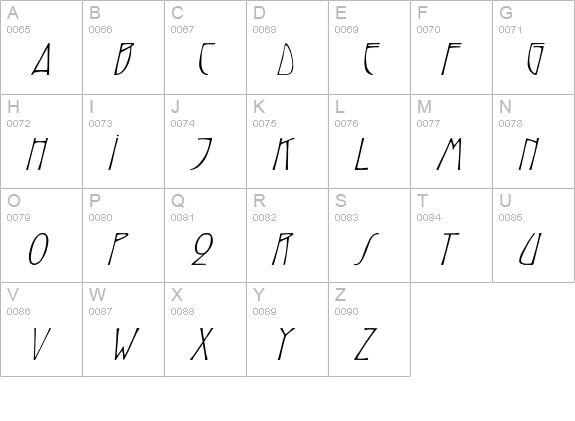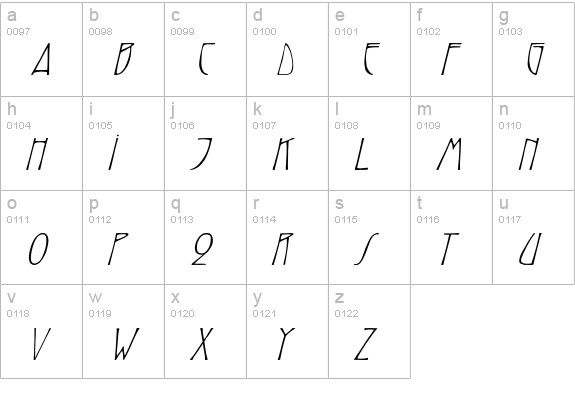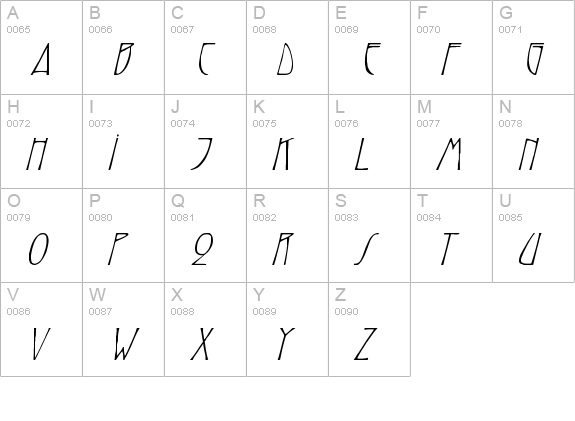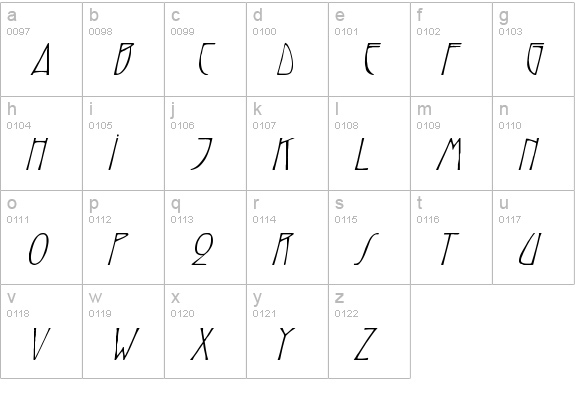
ReynoldCaps Italic is a distinctive, italic variant in the ReynoldCaps typeface family \xE2\x80\x94 well suited to design and typography projects.
ReynoldCaps Italic font is a stunning and elegant typeface that exudes sophistication and charm. With its delicate curves and slanted design, this font adds a touch of grace to any project or design. The italic style gives it a unique and stylish look, perfect for adding emphasis or creating a sense of movement. This font is not only visually appealing but also highly versatile. Whether you're designing a logo, creating an eye-catching poster, or crafting a beautiful invitation, ReynoldCaps Italic font will effortlessly enhance your work and make it stand out. One of the best things about ReynoldCaps Italic font is that it is completely free! Yes, you read that right. This remarkable font is freely available to download at FontsMarket.com. So, if you're looking to add a touch of elegance and sophistication to your designs without breaking the bank, ReynoldCaps Italic font is the perfect choice. Don't miss out on the opportunity to elevate your design projects with this exquisite font. Download ReynoldCaps Italic font today from FontsMarket.com and let your creativity soar.